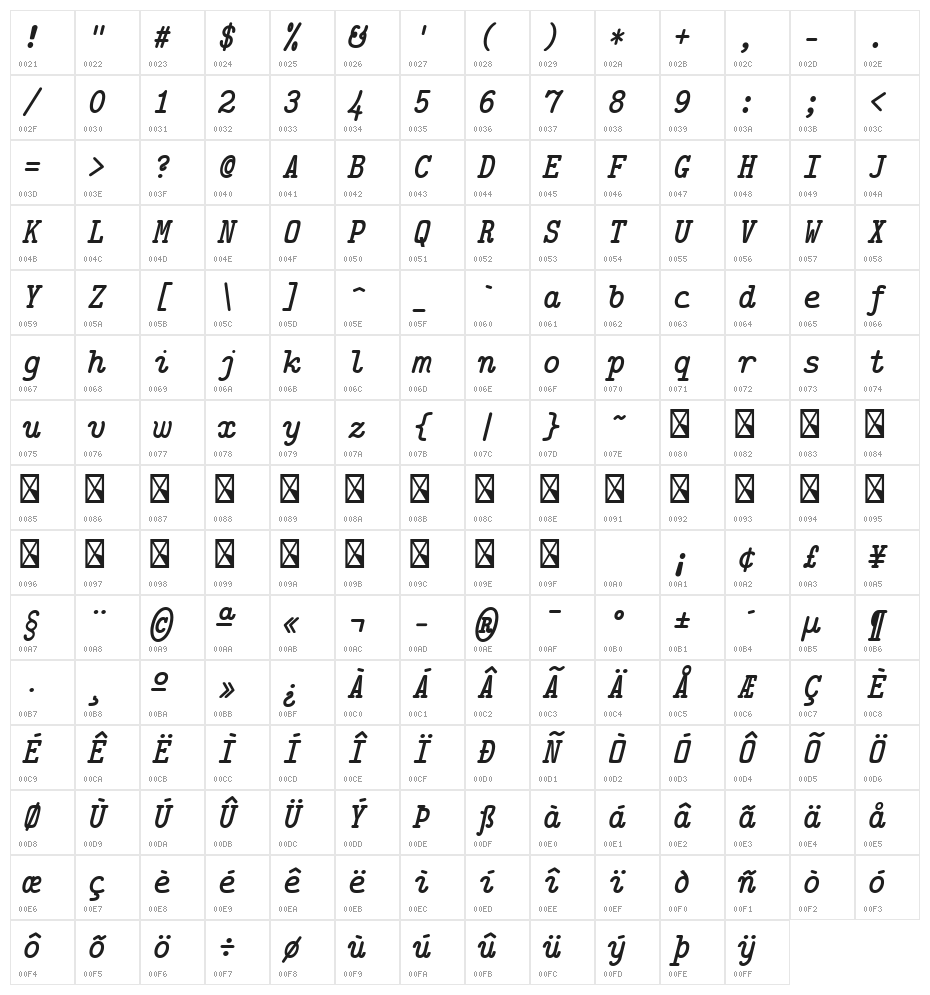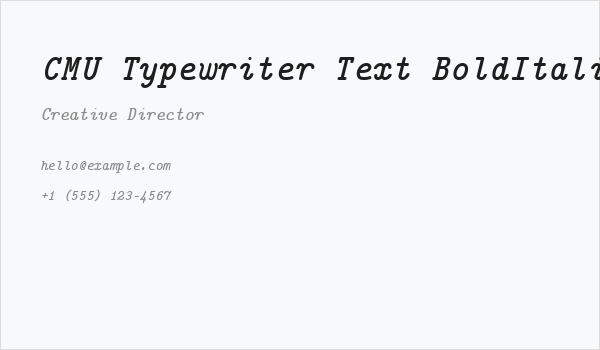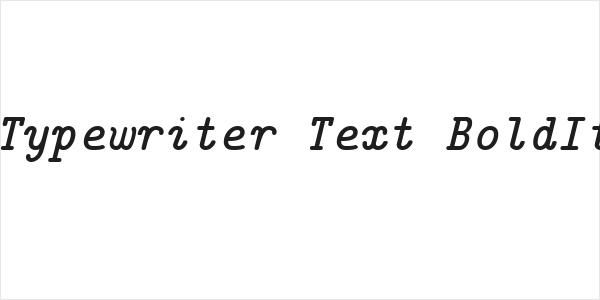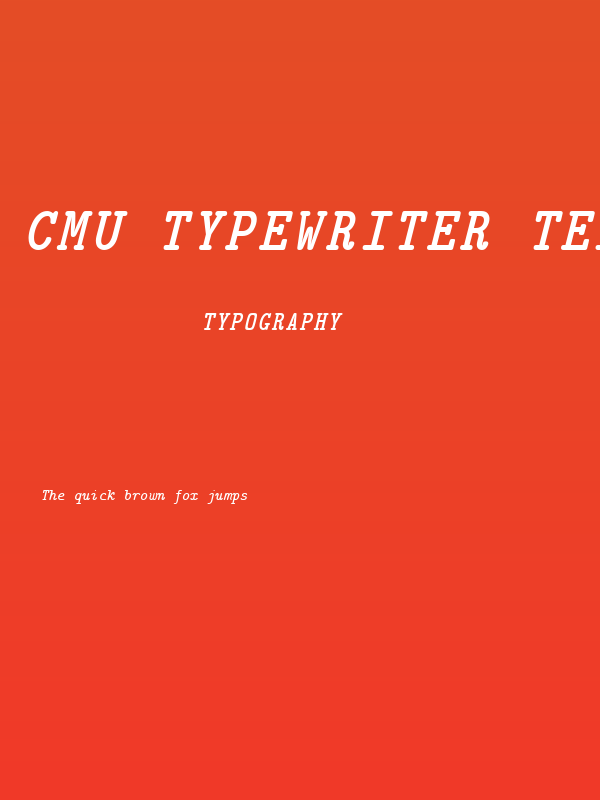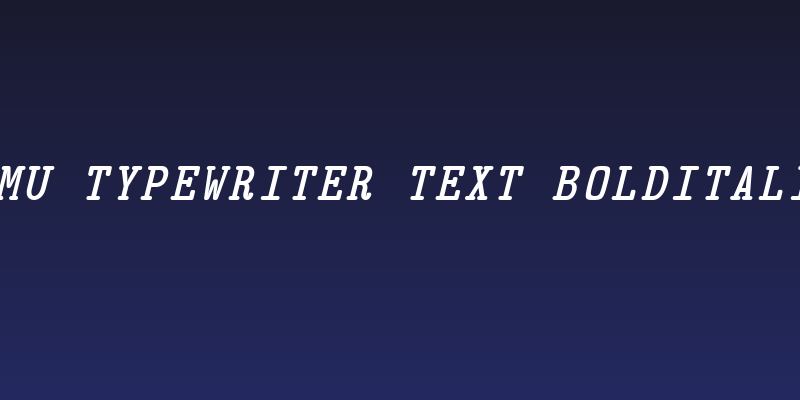
CMU Typewriter Text BoldItalic Font
CMU Typewriter Text BoldItalic Description
This font exhibits a classic typewriter style with a bold and italicized appearance. The characters are monospaced, giving it a uniform and structured look, reminiscent of traditional typewriter fonts. The boldness adds a strong presence, while the italic slant introduces a dynamic and slightly informal touch. Each letter is distinct, with rounded edges and consistent stroke widths, enhancing readability. The numerals and special characters maintain the same stylistic features, ensuring a cohesive overall appearance. This font is ideal for projects that require a vintage or retro aesthetic, while still maintaining clarity and legibility.
| Proposed Projects | Ideal for retro-themed designs, typewriter simulations, coding displays, and creative writing projects. |